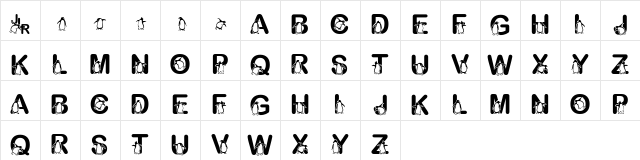
FL Penguin Regular
Design Context for FL Penguin Typeface
FL Penguin is a composed and adaptable typeface that performs quietly and consistently across a wide range of design contexts.